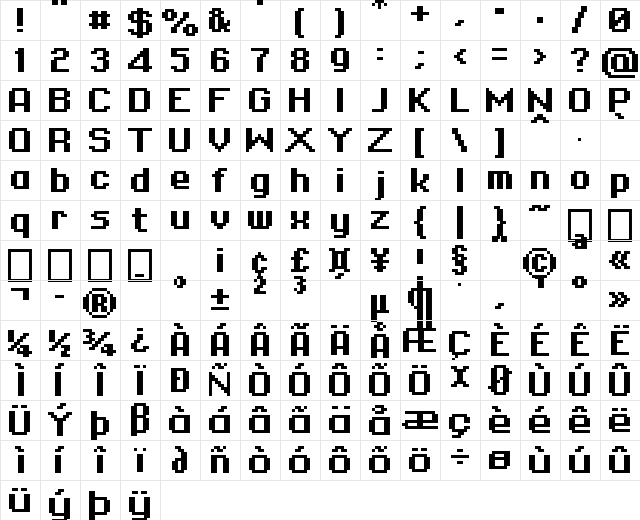
01Systematix8 Bold
Design Context for 01Systematix8 Typeface
01Systematix8 is a composed and adaptable typeface that performs quietly and consistently across a wide range of design contexts. Its bold stroke weight gives it real presence on the page.